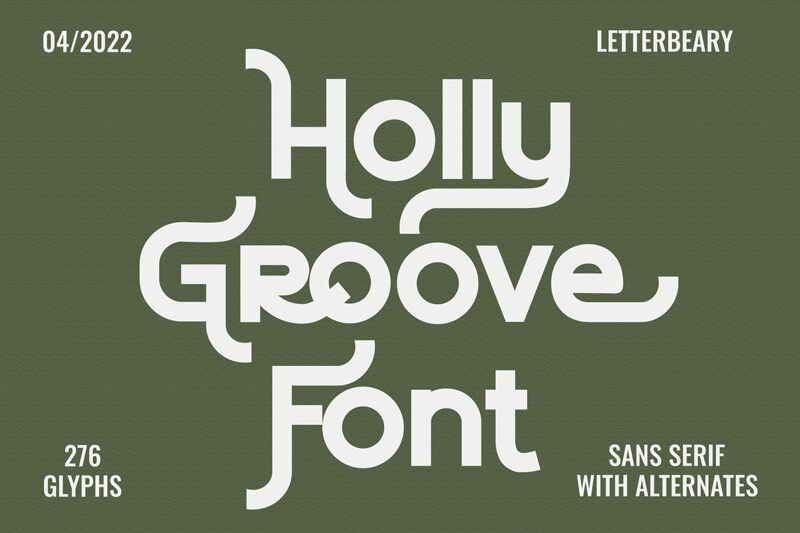
Holly Groove, designed by Bearytype, is a captivating sans serif font that effortlessly combines modernity with playfulness. With its semi-expanded width, this versatile typeface exudes an air of confidence and elegance.
It is perfect for projects that require a touch of sophistication, such as high-end fashion magazines or luxury brand logos. Additionally, its clean lines and legibility make it an excellent choice for website headers and body text in the tech industry or lifestyle blogs.
Holly Groove adds a stylish flair to any design, making it a must-have for creative professionals seeking to impress their audience.